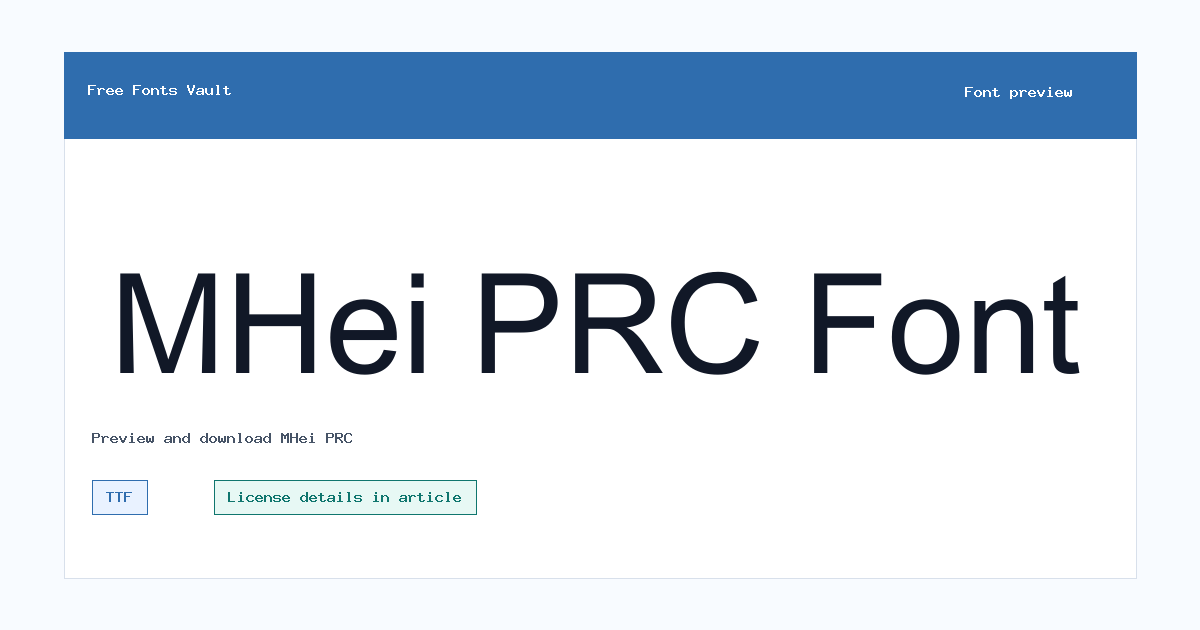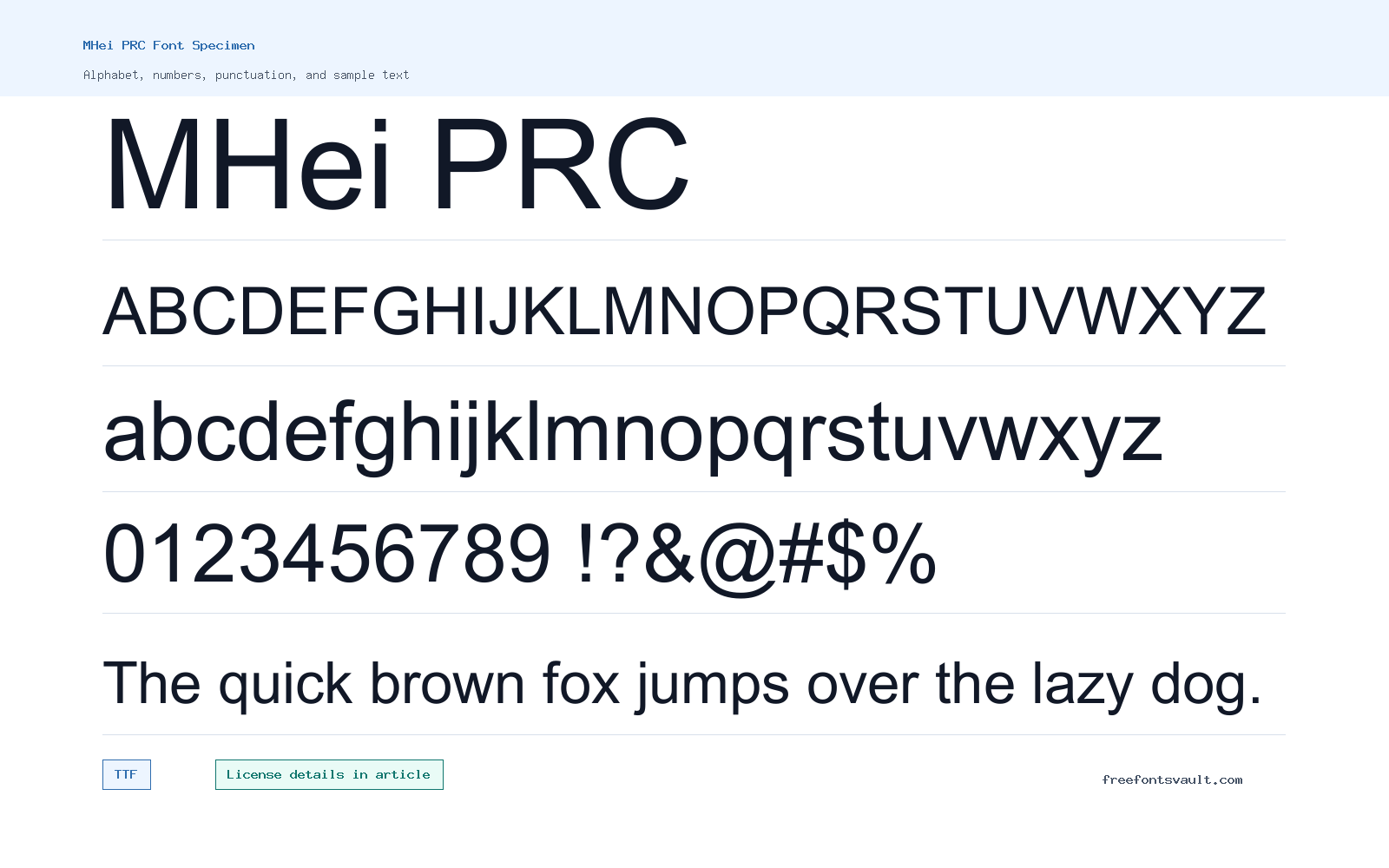
MHei PRC
MHei PRC font.
MHei PRC is a Simplified Chinese gothic-style typeface associated with Monotype HK and Monotype LETS. The downloadable file on this page is the Medium TrueType style, suited to clean CJK text where a steady, modern sans-serif look is needed.
About MHei PRC
MHei PRC Medium has the practical tone of a Chinese gothic typeface: clear strokes, even texture, and a neutral voice that can work in interface labels, document layouts, bilingual pages, and screen-based reading. The available file is MHei-PRC-Medium.ttf, marked as a normal style with a 500 weight, so it sits between regular body text and stronger heading emphasis. That makes it useful when you want Chinese text to feel firm without becoming too heavy.
- Simplified Chinese gothic-style family listed under Monotype LETS
- Neutral sans-serif appearance for CJK interface and document text
- Useful for testing headings, labels, bilingual text, and readable body copy
- Simplified Chinese website and app interface text
- Document layouts, forms, tables, and PDF drafts
- Bilingual Chinese-English pages that need a clean CJK companion
- Readable headings, signage-style labels, and navigation text
What kind of font is MHei PRC?
MHei PRC is a Simplified Chinese gothic-style typeface associated with Monotype HK and Monotype LETS. The file here is the Medium weight in TrueType format.
Is MHei PRC good for body text?
The Medium weight can work for readable Chinese text, UI labels, and documents, but test it at your target size. For long passages, check line spacing, punctuation, and mixed Chinese-English text before committing.